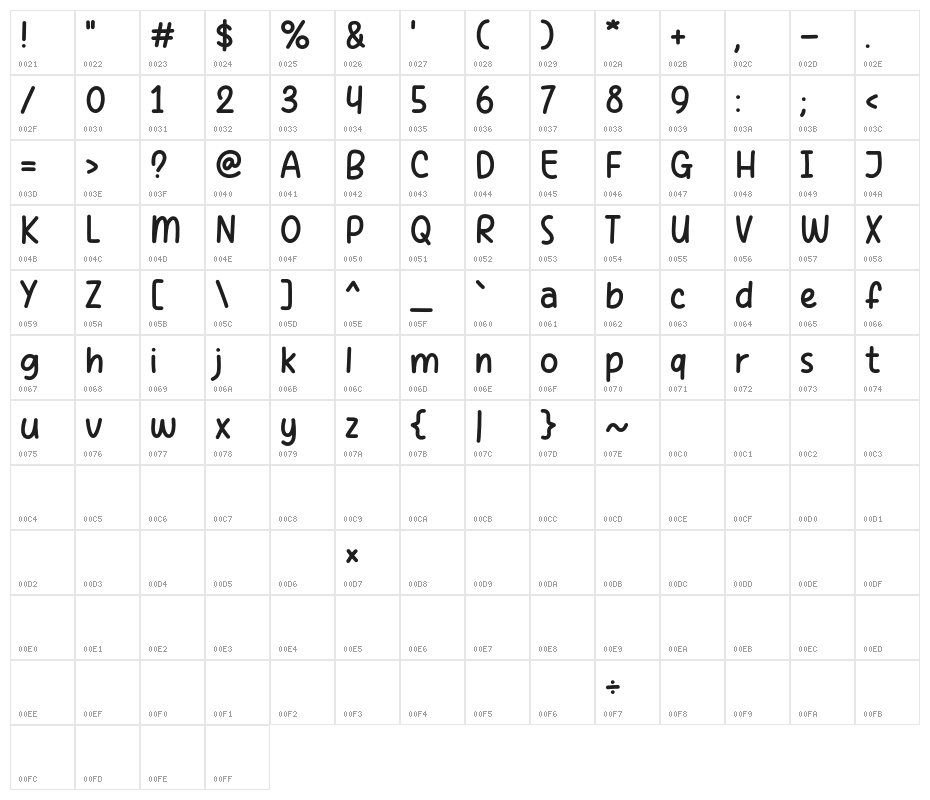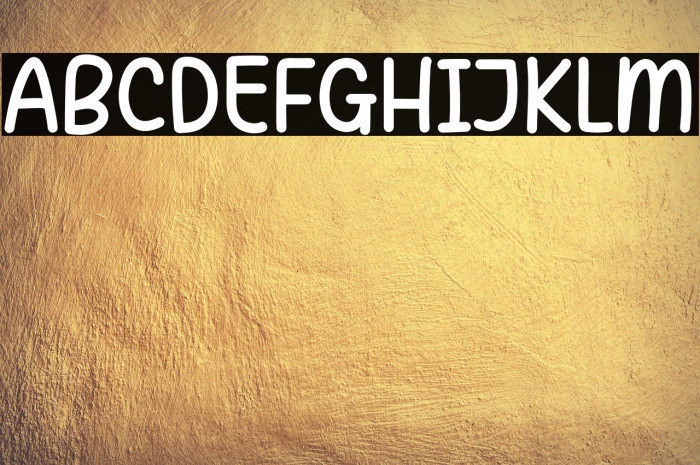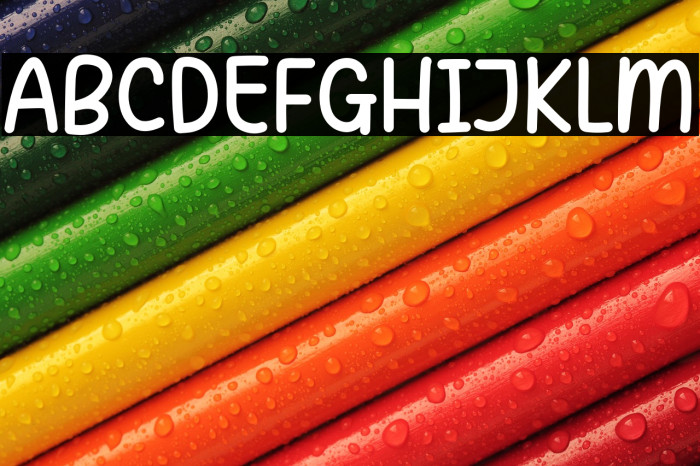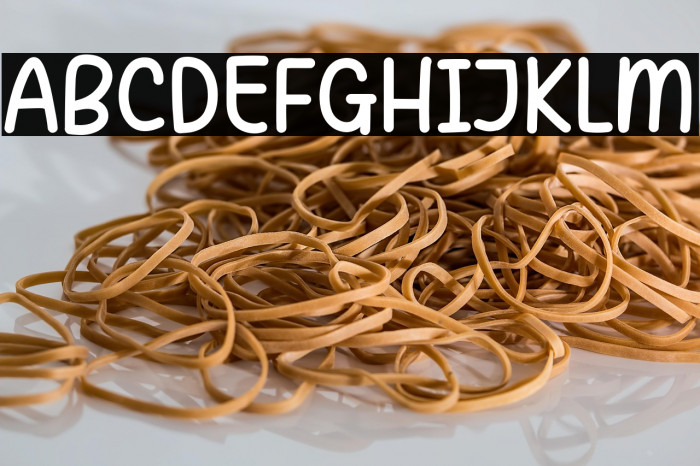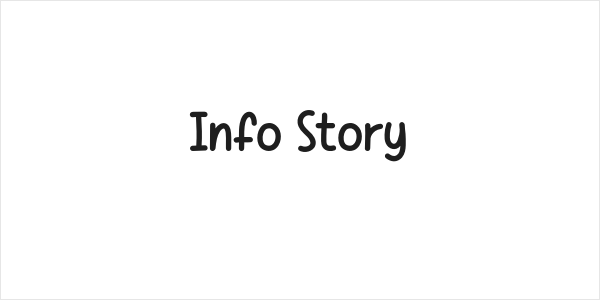
Info Story Font
Info Story Description
This playful and rounded font exudes a friendly and approachable vibe, making it ideal for casual and informal communication. The characters are evenly spaced with a consistent stroke width, giving it a clean and legible appearance. The rounded edges and slightly irregular shapes add a touch of whimsy and charm, making it suitable for children's books, playful branding, or any project that requires a lighthearted touch. The font maintains a uniform weight throughout, ensuring readability while adding a unique personality to the text.
| Proposed Projects | Ideal for children's books, playful branding, casual invitations, and informal communication. |